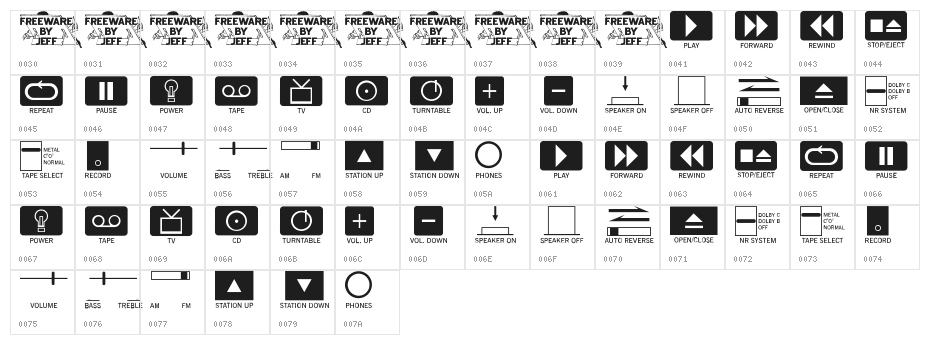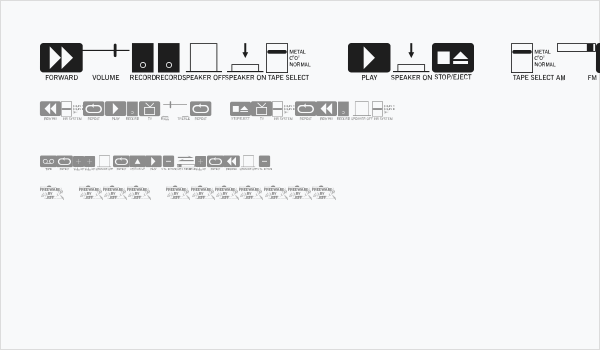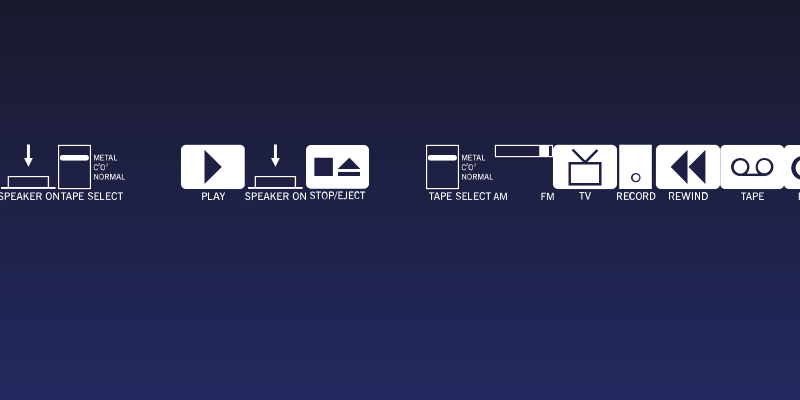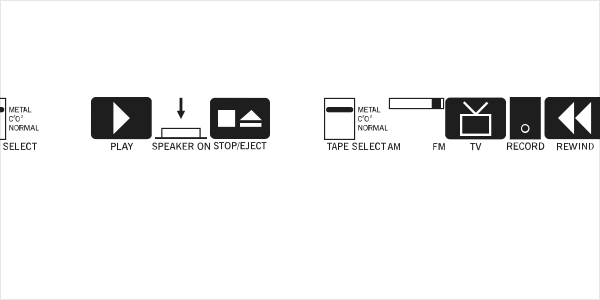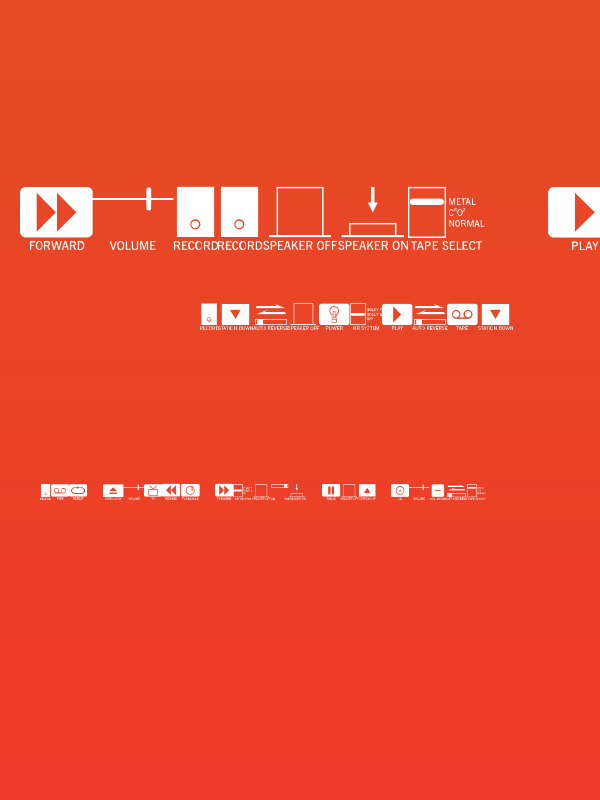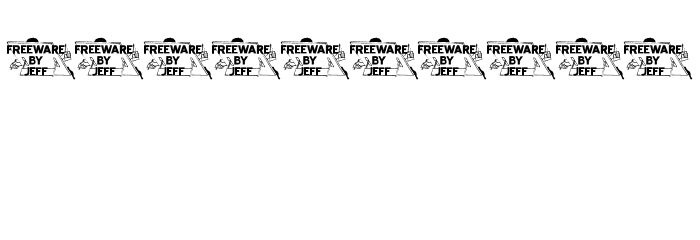
Buttons and Switches JL Font
Buttons and Switches JL Description
This design features a collection of icons and symbols commonly associated with audio and video equipment controls. The symbols include play, forward, rewind, stop/eject, repeat, pause, power, tape, TV, CD, and volume controls. Each icon is enclosed in a square or rectangular shape, providing a uniform look. The style is reminiscent of classic audio equipment interfaces, with clear and easily recognizable symbols. The design is monochromatic, using black and white for high contrast, ensuring visibility and clarity. The icons are designed to be intuitive, making them suitable for use in user interfaces where quick recognition is essential.
| Overall Style | Vintage |
| Use Case | Icons, User Interfaces, Decorative Elements |
| Proposed Projects | Ideal for retro-themed audio equipment interfaces, educational materials on audio/video equipment, or decorative elements in vintage-inspired graphic design projects. |